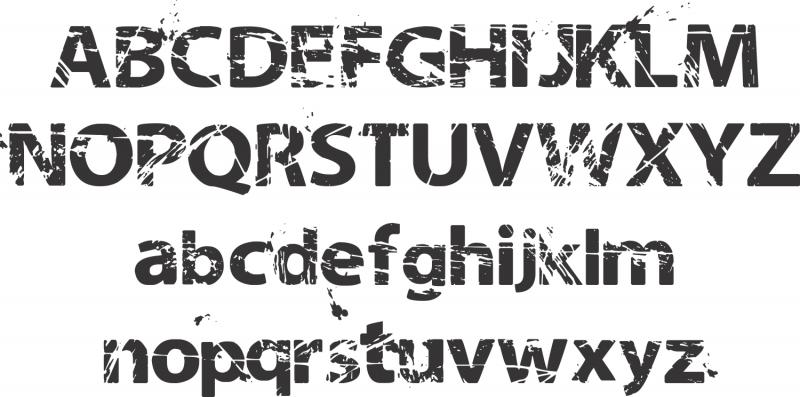
What's the original font?
So I have this font... called Neotrash, but the "underlying" font lets call it... the origin, looks SO familiar.
I see uppercase letters such as "R" & "S", and lower case letters such as the "b" & "d" that have a distinct look to a commonly known/used font, but for the life of me, I can't name it or place it...
Anyone recognize this, before all the junk was added?